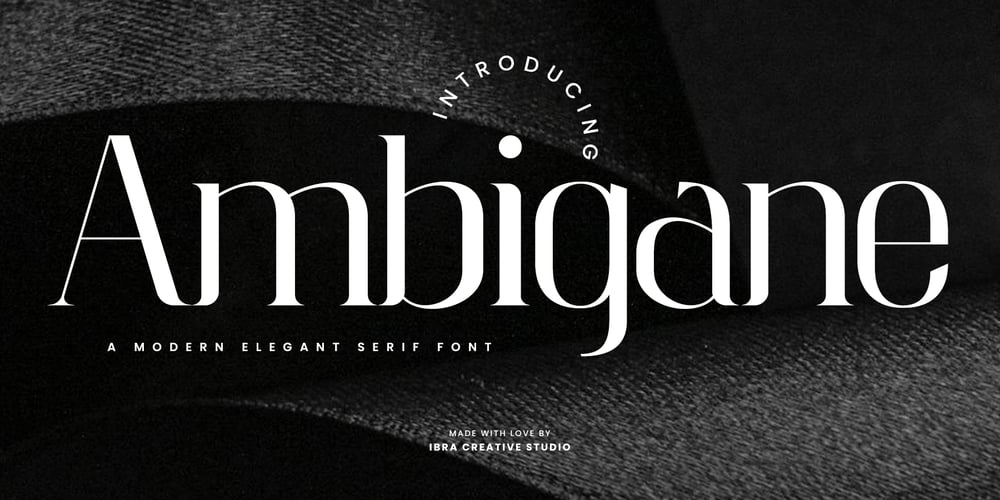
Ambigane Font Family was designed by Roisatul Azizah and published by IbraCreative. Ambigane contains 1 styles and family package options. Ambigane is a modern and elegant serif font that seamlessly blends sophistication with contemporary design. Its refined, timeless aesthetic is characterized by the subtle curves and clean lines of its letterforms, exuding a sense of luxury and professionalism. Ambigane strikes a harmonious balance between traditional serif elements and a fresh, modern twist, making it versatile for a range of design applications. With its well-crafted serifs and balanced proportions, Ambigane communicates a sense of refinement and style, making it an ideal choice for projects that require a touch of sophistication and a contemporary edge. Whether used in print or digital media, Ambigane conveys a sense of timeless elegance that elevates any visual composition.